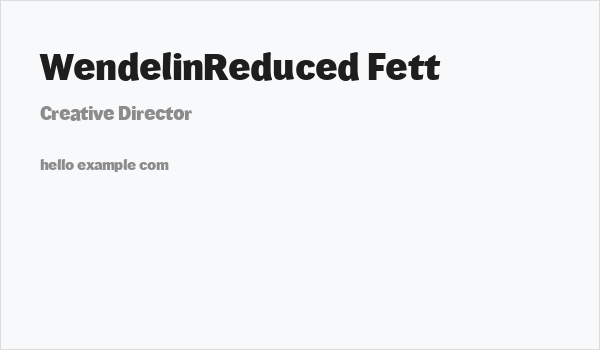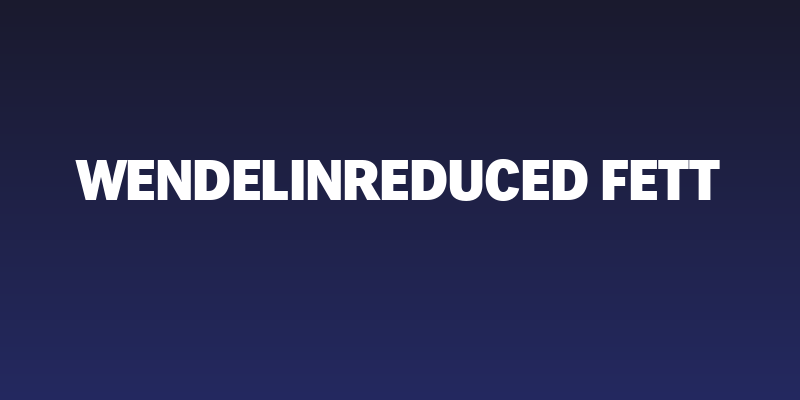
WendelinReduced-Fett Font
WendelinReduced-Fett Description
This font features bold, thick strokes that convey a strong and impactful presence. The characters are designed with a slightly condensed width, giving them a compact and powerful appearance. The uppercase letters are particularly striking, with a uniform height and consistent weight throughout. The lowercase letters maintain the boldness of the uppercase, with rounded edges that add a touch of softness to the overall robust design. The font's style is modern and assertive, making it suitable for attention-grabbing headlines and titles. Its high contrast in stroke thickness enhances readability and visual interest.
| Proposed Projects | Ideal for headlines, posters, branding materials, and any project requiring a strong visual impact. |